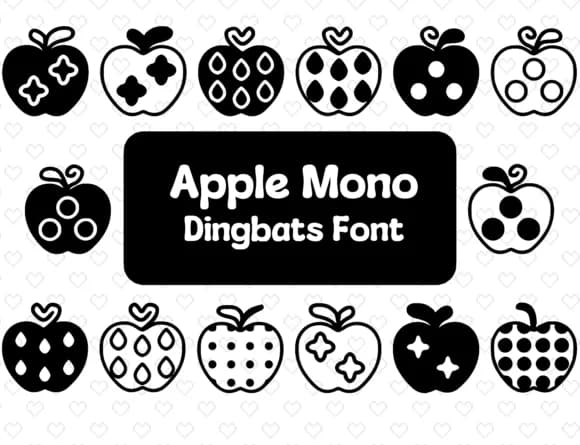
Apple Mono by Distiny4919 is a dingbats font brimming with hand-drawn apple illustrations that feel genuinely handcrafted and organic. Every keystroke produces a different orchard-inspired symbol, from crisp whole fruits to leaf details and creative cross-sections. The sketched quality of each doodle carries warmth that works precisely because it avoids the overly polished look of many digital icon fonts. This typeface lets you add genuine visual personality and illustration-quality character to projects where you'd otherwise need to hire a dedicated illustrator.
This design shines wherever you need authentic, approachable decoration without extra design work. Custom jam and preserve labels gain instant charm from the character set, as do greeting cards for gardening and agricultural themes. Etsy-style product packaging and small-batch craft labels benefit greatly from the sketch-like quality that communicates care and intention to customers. Farmers market signage, DIY craft signage, and educational worksheets all gain personality from the font's playful character set. Teachers and homeschooling parents find it especially effective for children's book illustrations and activity sheets where visual personality matters. The collection works with Windows, Mac, iPad, Adobe Illustrator, Procreate, Affinity Designer, and Affinity Photo. Grab Apple Mono from Creative Fabrica to start adding orchard character to your next design project.
Apple Mono Font is a versatile dingbats font that works for both headings and body text. Pair it with a contrasting sans-serif or serif font to add visual interest and a clear distinction between titles and body copy.
Apple Mono Font
by Distiny4919